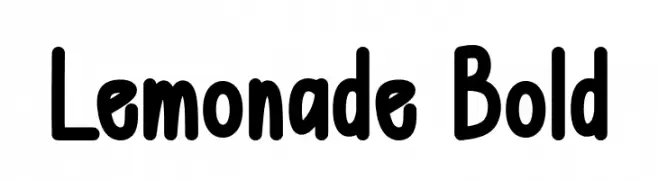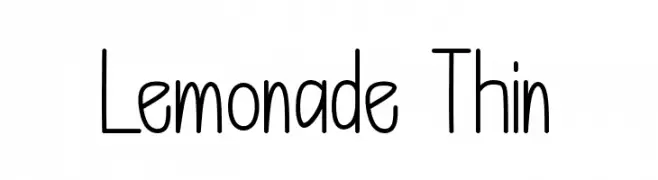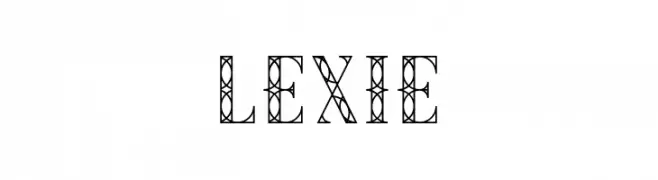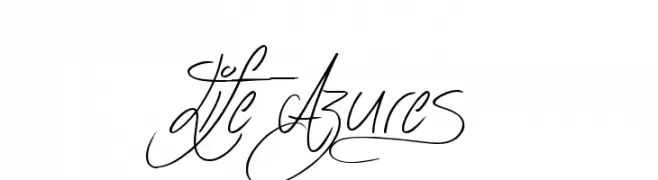
• Lemonade Bold
A playful, bold font with rounded edges and a slightly condensed form.
• Lemonade Regular
A playful, hand-drawn font with rounded edges and a whimsical style.
• Lemonade Thin
A playful, hand-drawn style font with tall, narrow letters and consistent stroke thickness.
• Leonetta Script
A delicate, elegant handwritten script with fluid, continuous strokes.
• Leonetta-Serif
An elegant serif font with refined strokes and classic appeal.
• Lettering Script
An elegant, flowing script font with decorative swirls and loops.
• Letterly
A decorative font with intricate, artistic designs within each character.
• Lexie
A decorative font with intricate lattice patterns and bold outlines.
• Life Azures
An elegant, flowing script font with interconnected, ornate letters.